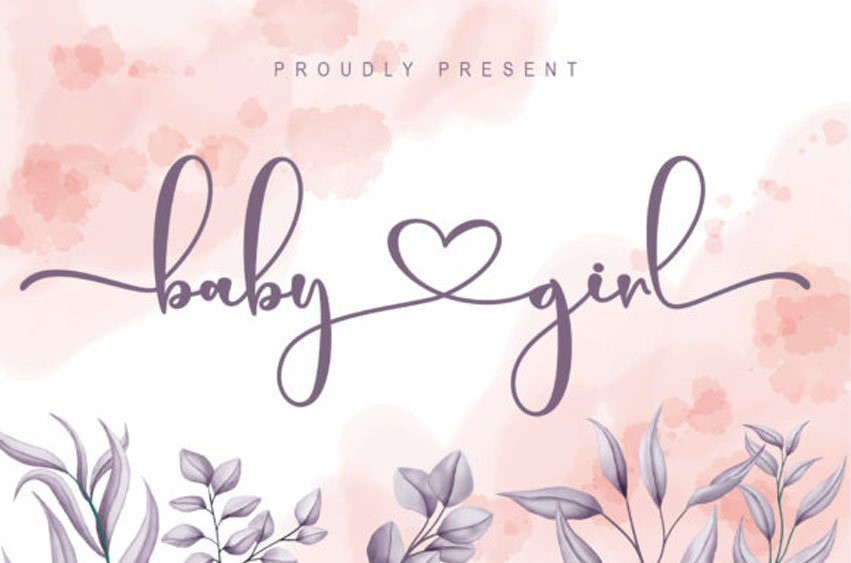
Baby Girl Font
Baby Girl Font is an stylish handwritten font. This flexible script font has a wide spectrum of applications ranging from greeting cards to headlines and is guaranteed to add a delicate feel to your next project.